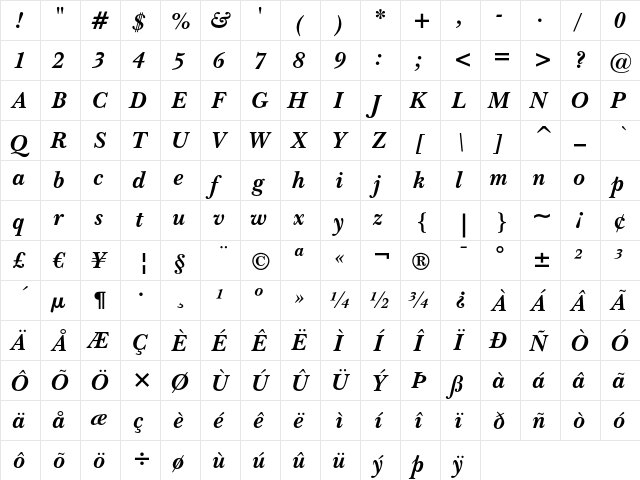
Baskerville No.2 Bold Italic Font Preview
Design Context for Baskerville No.2 Typeface
Baskerville No.2 takes a measured approach to typography — its balanced proportions and neutral character make it a reliable workhorse for both digital and print work. The dynamic lean of this cut emphasises speed and emphasis in any layout. Its bold stroke weight gives it real presence on the page.
Pro Tip: Try Baskerville No.2 for annotation and caption copy alongside an upright companion — the contrast in angle creates a dynamic but ordered typographic system.